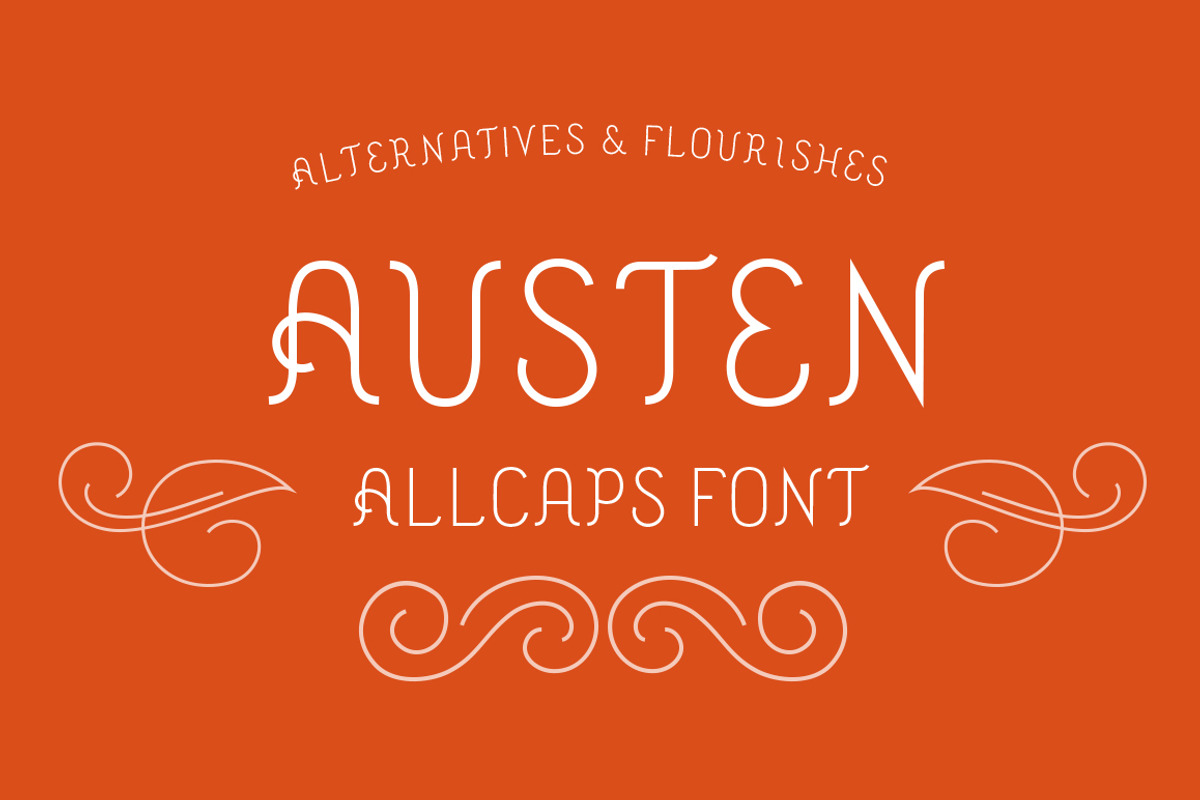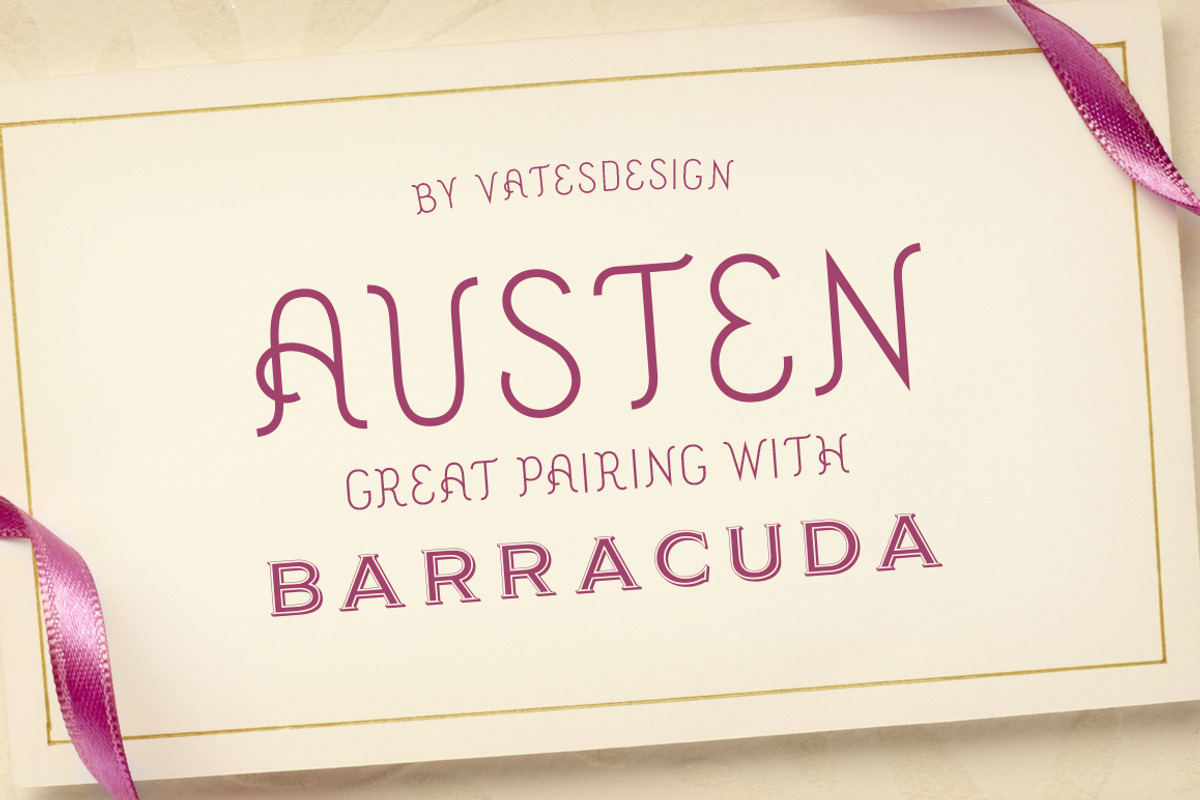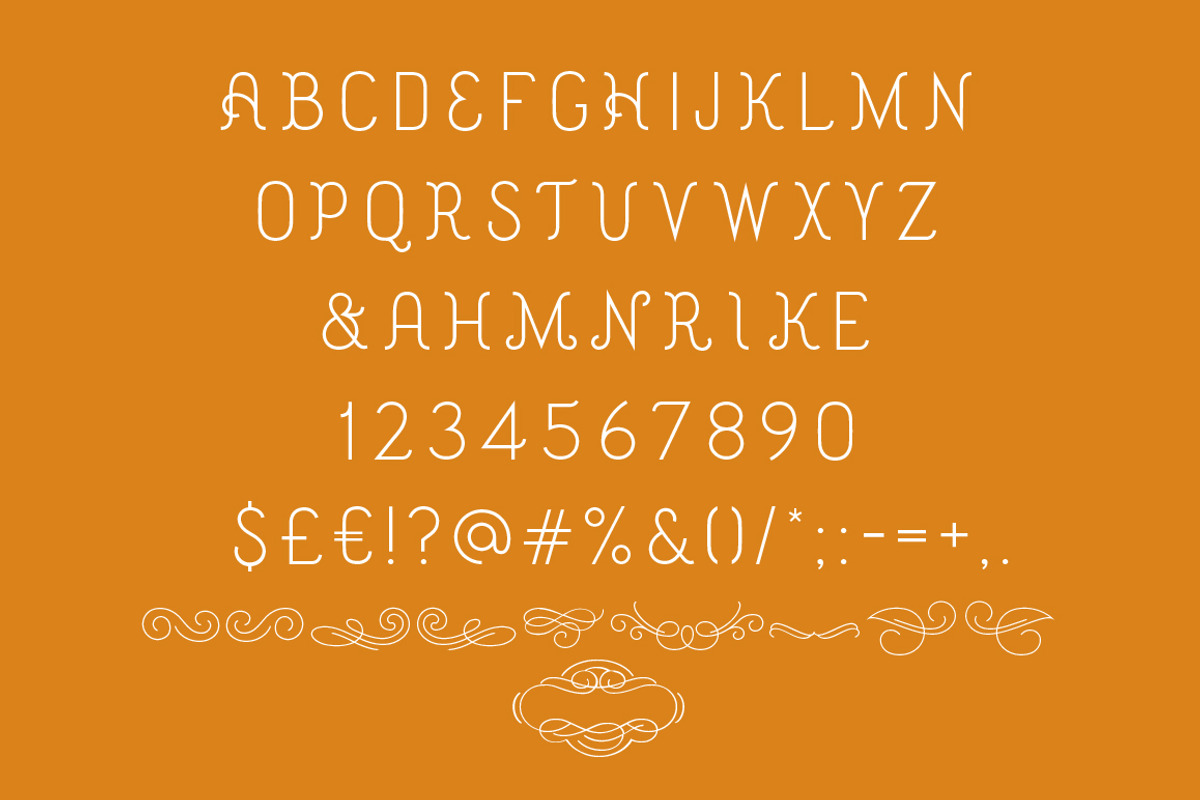
Austen Display Font
Austen Display Font by vatesdesign is a font selected for branding, posters, packaging, typography.
- It comes with stylistic alternatives for key characters and 10 flourishes.
Why Austen Display Font is worth a look
Austen Display Font by vatesdesign fits naturally into Branding, posters, packaging, typography.